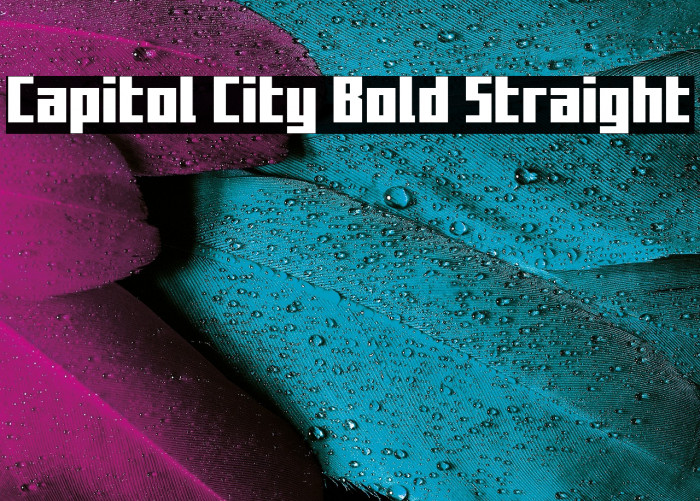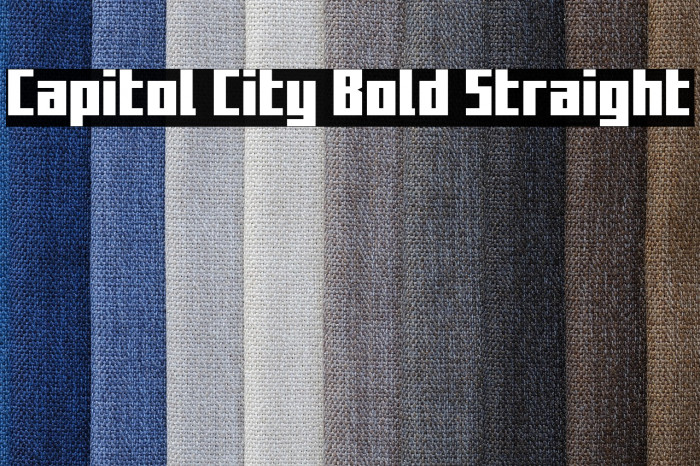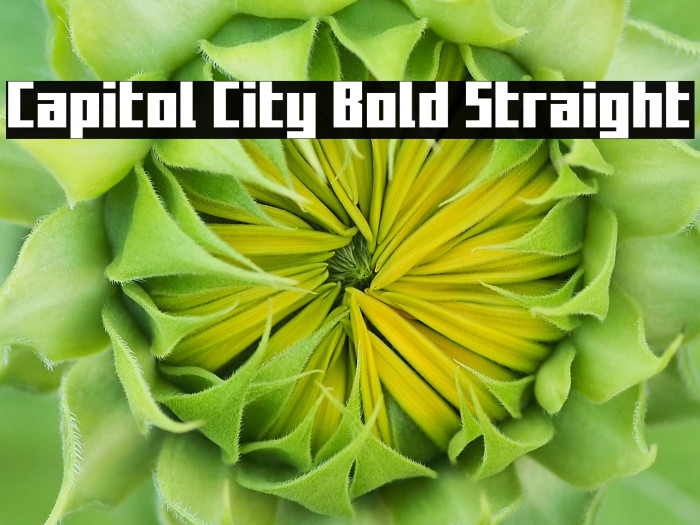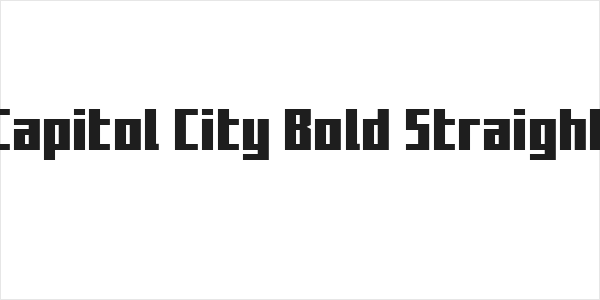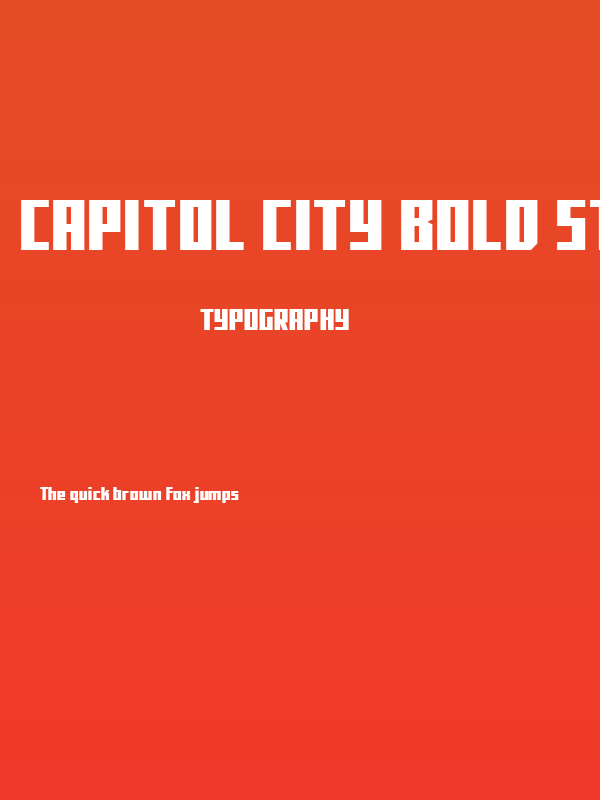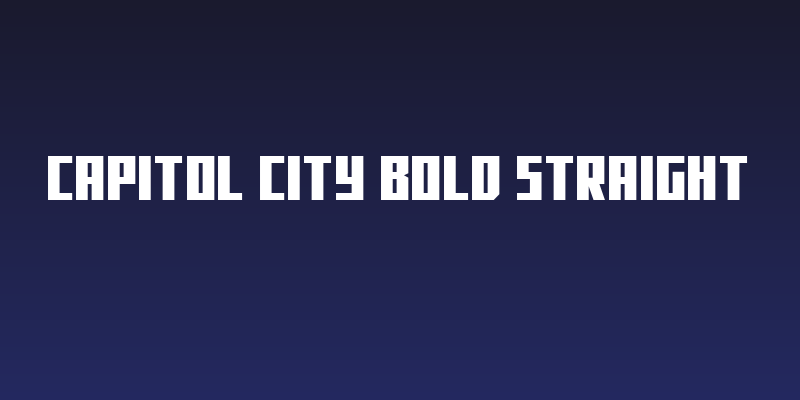
Capitol City Bold Straight Font
Capitol City Bold Straight Description
This font features a bold and geometric design with straight, clean lines and sharp angles. The characters are uniformly thick, creating a strong and impactful presence. The uppercase and lowercase letters maintain a consistent height, contributing to a cohesive look. The numerals and special characters follow the same bold style, ensuring uniformity across all text elements. The font's design is reminiscent of industrial or urban aesthetics, making it suitable for projects that require a modern and assertive appearance.
| Proposed Projects | Ideal for branding, posters, headlines, and any design that requires a strong visual impact. |